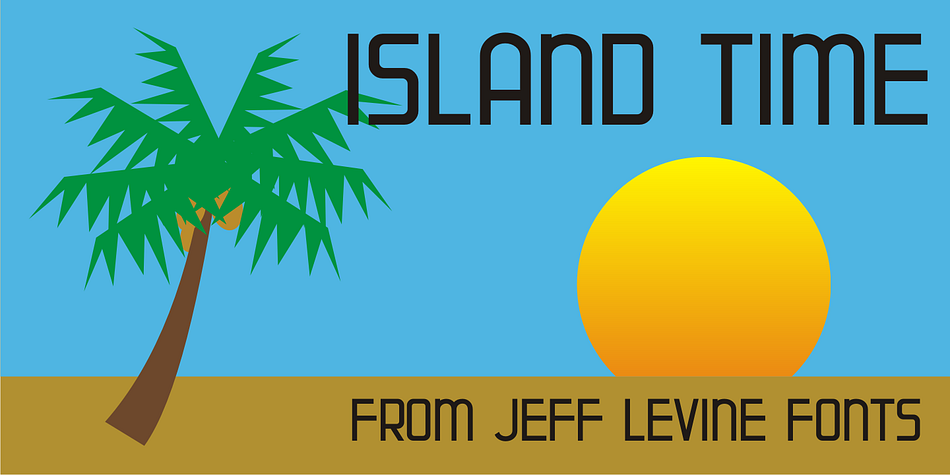
Island Time JNL is a display sans and art deco font published by Jeff Levine Fonts.
Island Time JNL is based on the hand-lettered title from a piece of 1940s sheet music called “An Island Melody”. This Art Deco typeface is perfect for projects where a clean, yet attractive headline font is needed.
The font’s name is based on the euphamism popular amongst Caribbean Islanders that when someone is excessively late for an appointment, date or event they are running on “island time”